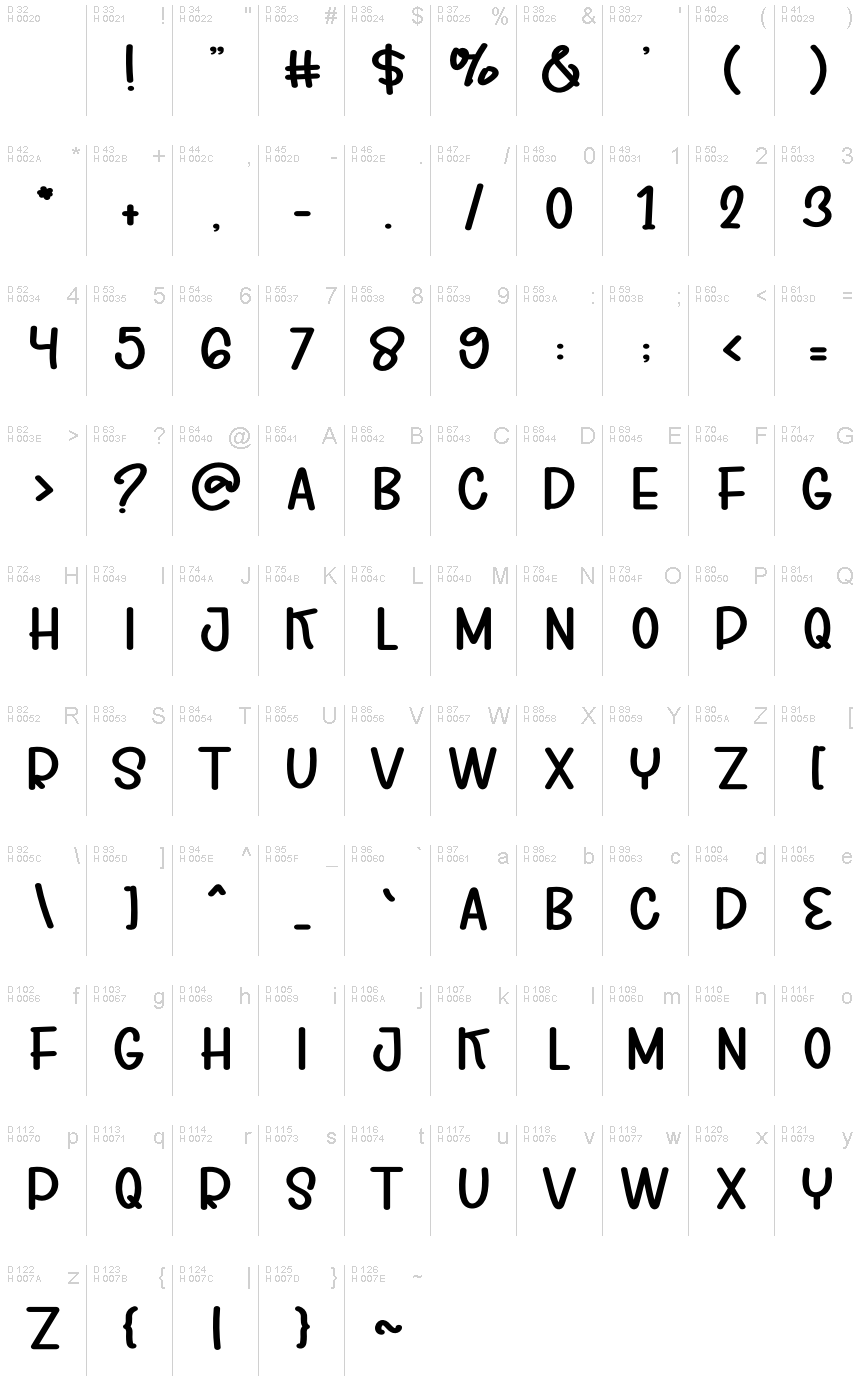
SPACE
Space, crafted by PiPi Creative, is a handwritten font that embodies a blend of casual elegance and playful dynamism. Its characters boast an organic flow that mimics the spontaneity of human handwriting, making it instantly warm and inviting. The Space font strikes a balance between readability and stylistic flair, with gentle curves and varying line weights that add character to every glyph.
This font's aesthetic charm lies in its ability to convey personality while maintaining clarity—a hallmark of thoughtfully designed handwriting fonts. It's versatile enough for branding projects, social media graphics, and any creative endeavor seeking a personal touch. With its distinctive style, Space invites designers to explore a realm where typographic design meets the artistry of pen on paper. Whether used for an intimate wedding invitation or a bold marketing campaign, Space delivers an authentic voice to your visual narrative.